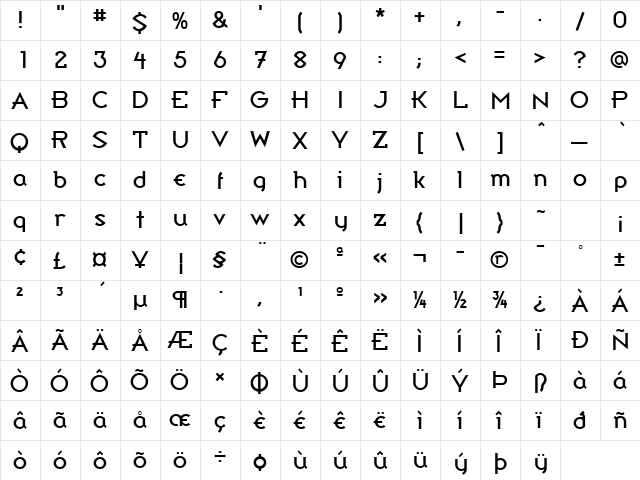
Broadband Regular Font Preview
Broadband Regular
Design Context for Broadband Typeface
Broadband takes a measured approach to typography — its balanced proportions and neutral character make it a reliable workhorse for both digital and print work.
Pro Tip: Use Broadband in both headline and body roles to test its range before committing to a single application.